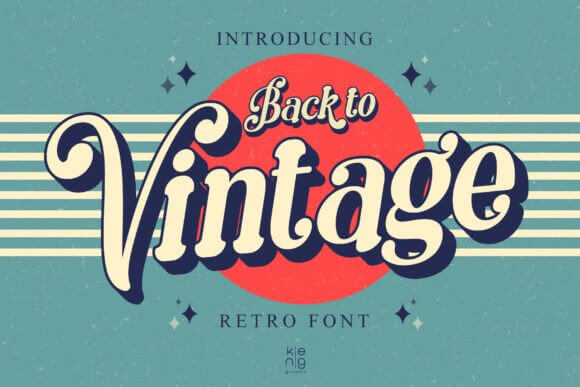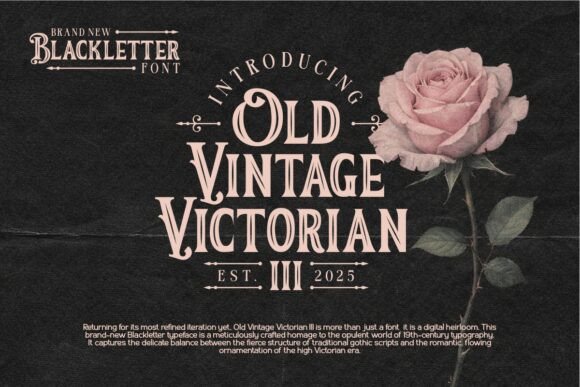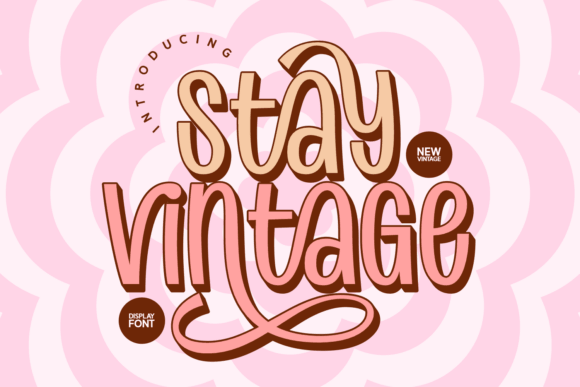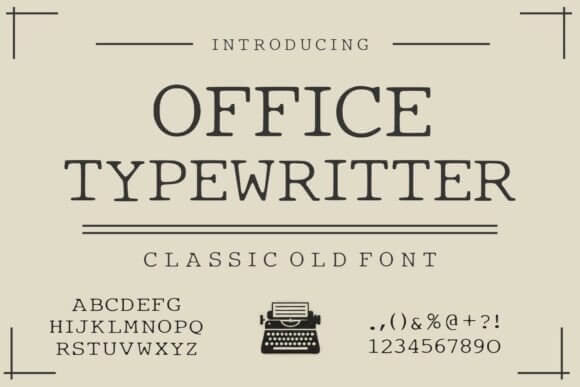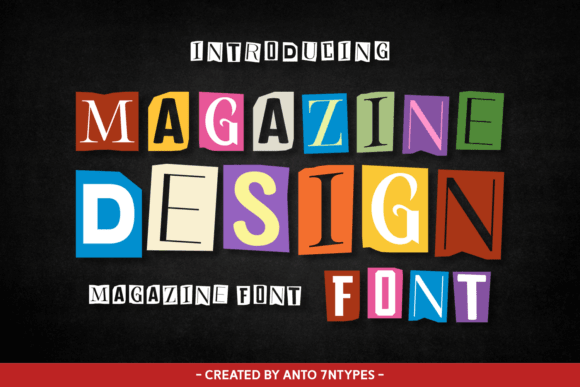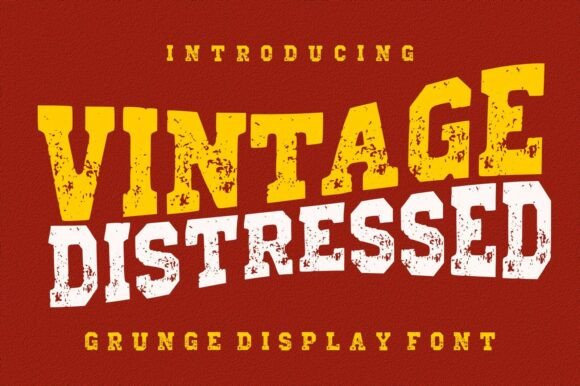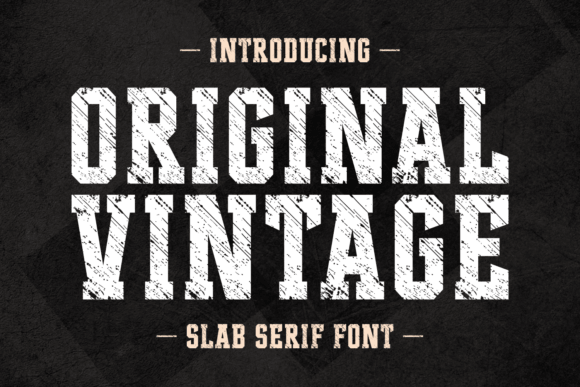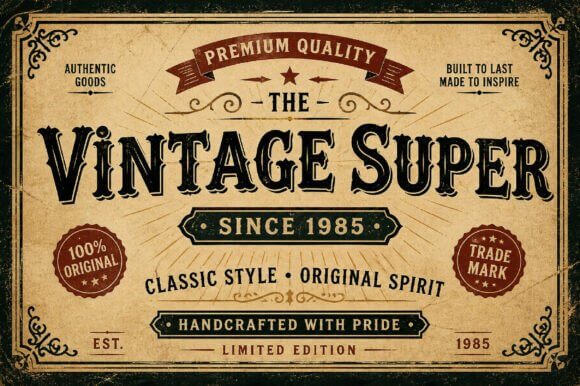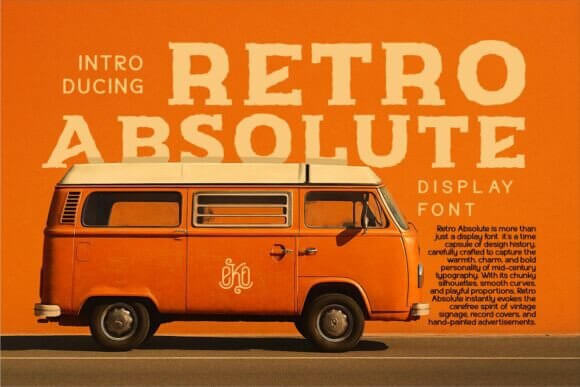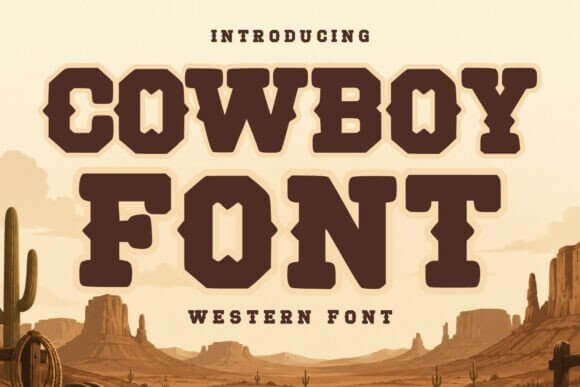
Vintage fonts aren’t a “nice-to-have” anymore, they’re a shortcut to mood. Designers keep leaning on retro typography because it boosts recall, sets era instantly, and makes plain words feel like an object you can almost touch . . . think ink, paper grain, neon, stitched patches. In this list we pulled 18 options that cover vintage fonts aesthetic, vintage fonts handwriting, vintage font style for branding, and even vintage fonts alphabet retro vibes for packaging, menus, and posters. FYI, mixing one loud display face with one calm text font still wins most layouts, every time.
Back To Vintage Display Lettering Set
This one screams classic storefront, in the good way. If you want retro typography that stays readable on mobile headers and still looks chunky on print, this is a safe bet.
Where It Looks Best In Real Projects
- Logos And Branding – punchy wordmarks with instant nostalgia.
- Packaging And Labels – bold names on jars, candles, coffee.
- Social Media Templates – headline styles that pop fast.
- Event Posters – big type, simple layout, done.
Old Vintage Victorian III Ornamental Typeface
Decorative, dramatic, a little extra . . . and that’s the point. Use it when you need vintage serif energy for titles, badges, and high-contrast layouts that feel like an old print shop.
Great Fits For
- Book Covers – period vibes without messy illustration.
- Whiskey Or Perfume Labels – premium, old-school tone.
- Wedding Stationery – formal invites with flair.
- Editorial Headlines – pull quotes, section openers.
Stay Vintage Retro Script Display
Loose, friendly, and a bit rebellious, like a painted sign that survived a few summers. When you want handwritten script font vibes but still need clean letter connections, this gets you there.
Use It For
- Salon And Boutique Branding – warm, personal, not corporate.
- Sticker Designs – quick phrases, cute slogans.
- Drink Menus – specials, seasonal items, callouts.
- Merch Typography – tees, totes, caps.
Office Typewritter Monospace Typewriter Font
Yep, it does the “typed on paper” thing, and it doesn’t look fake. For typewriter font layouts, keep spacing generous, add a little grain, and your design suddenly feels like a found document.
Best Places To Drop It In
- Journaling Printables – prompts, trackers, notes.
- Poster Subheads – contrast under big display fonts.
- Brand Story Cards – origin notes, thank-you cards.
- Photo Captions – scrapbook and album pages.
Magazine Design 2 Bold Editorial Font
Clean edges, confident shapes, that “cover line” attitude. If you’re building vintage editorial design with big headlines and neat columns, this one behaves nicely even when you push sizes hard.
Where It Works
- Magazine Covers – titles, issue numbers, teasers.
- Lookbooks – product names and section pages.
- Portfolio PDFs – sharp headings without fuss.
- Website Hero Text – bold first impression typography.
Vintage Distressed Texture-Ready Display Font
This is the rough one, the “been around” one, the one you use when perfection feels wrong. For stamped logos and gritty badges, it brings texture without you spending an hour faking it.
Try It On
- Craft Packaging – soaps, candles, handmade goods.
- Beer Labels – taproom branding, can art.
- Outdoor Posters – markets, fairs, live music.
- Badge Graphics – seals, emblems, patches.
Original Vintage Classic Sign Painter Typeface
It lands right in that hand-painted sign zone, where curves feel human and edges feel intentional. If you’re collecting vintage lettering fonts for storefront-style branding, add this one and move on.
Where To Put It
- Cafés And Bakeries – chalkboard menus, window decals.
- Farmers Markets – signage that feels local.
- Product Tags – price cards, hang tags.
- Retro Website Headers – hero titles with charm.
Vintage Super Chunky Retro Display Letters
Big, bubbly, loud, kind of addictive. When your layout needs cool text fonts energy for a headline that grabs attention in half a second, this does that job without whining.
Good Uses
- Kids Brand Packaging – playful product names.
- Promo Flyers – sales, openings, announcements.
- Sticker Packs – punchy short words.
- Thumbnail Text – readable at tiny sizes.
Retro Absolute Glam Display Typeface
Sleek and flashy, like a late-night marquee but cleaner. If you want vintage glamour font vibes for beauty, fashion, or “treat yourself” brands, keep the palette simple and let the letters do the talking.
Where It Shines
- Beauty Branding – cosmetics, salons, lash artists.
- Event Posters – club nights, themed parties.
- Photo Overlays – title cards, reels intros.
- Product Launch Pages – hero headlines with drama.
Cowboy 98 Western Poster Display Font
Western without going full costume, which IMO is harder than it sounds. For font for poster designs, pair it with a plain sans and you’ll get that rodeo flyer vibe with modern readability.